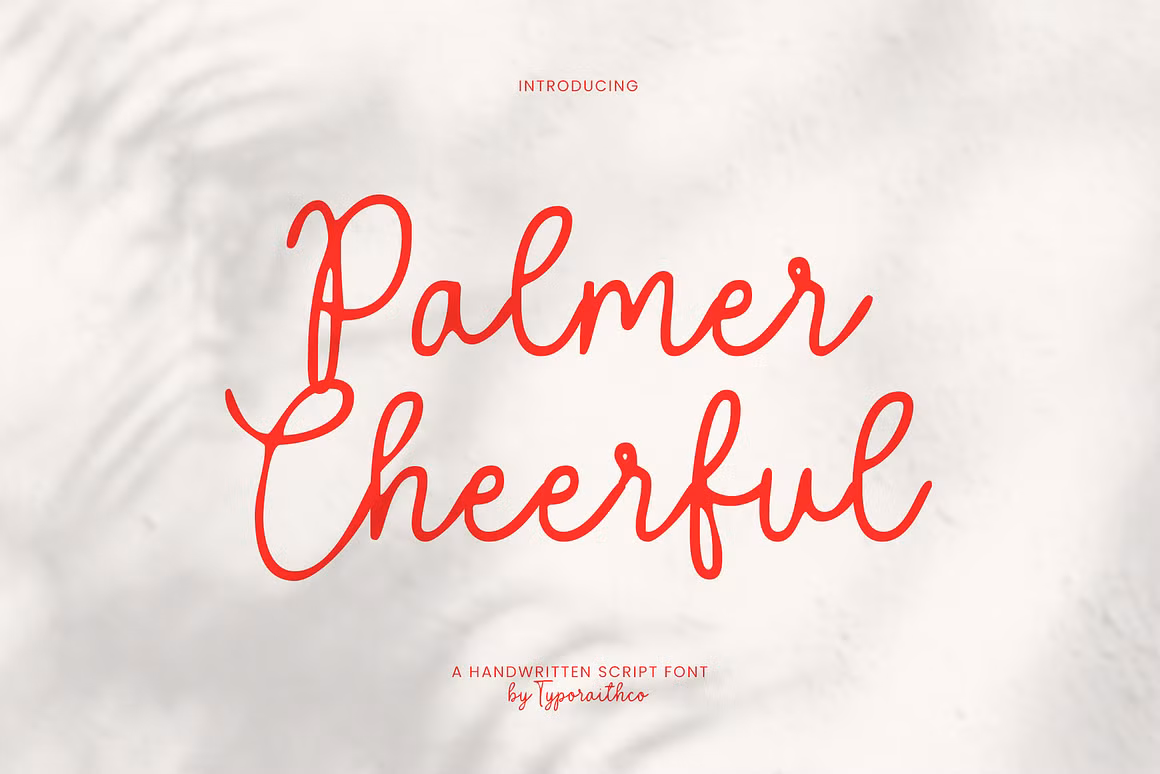
Palmer Cheerful – Playful Handwritten Script Font for Invites & Branding
Palmer Cheerful Script Font – Playful Handwritten Typeface for Invites & Branding
Palmer Cheerful by Typoraith Co. is a cheerful and flowing handwritten script font that brings a personal, uplifting touch to your designs. With its casual curves, smooth strokes, and slightly bouncy baseline, Palmer feels both organic and expressive—perfect for injecting joy and character into your branding and creative projects.
Whether you’re designing quotes, logos, packaging, social media posts, or stationery, this font delivers a natural and friendly feel that resonates with modern handwritten aesthetics.
Perfect For
– Greeting cards & quotes –
– Logos & branding –
– Wedding invitations –
– Social media graphics –
– Packaging & product design –
– Feminine and lifestyle designs –
Font Features
– Uppercase & lowercase characters –
– Punctuation & numerals –
– Smooth flowing script style –
– Natural handwritten appearance –
– Works great with small or large text sizes –
Font Style: Script, Handwritten